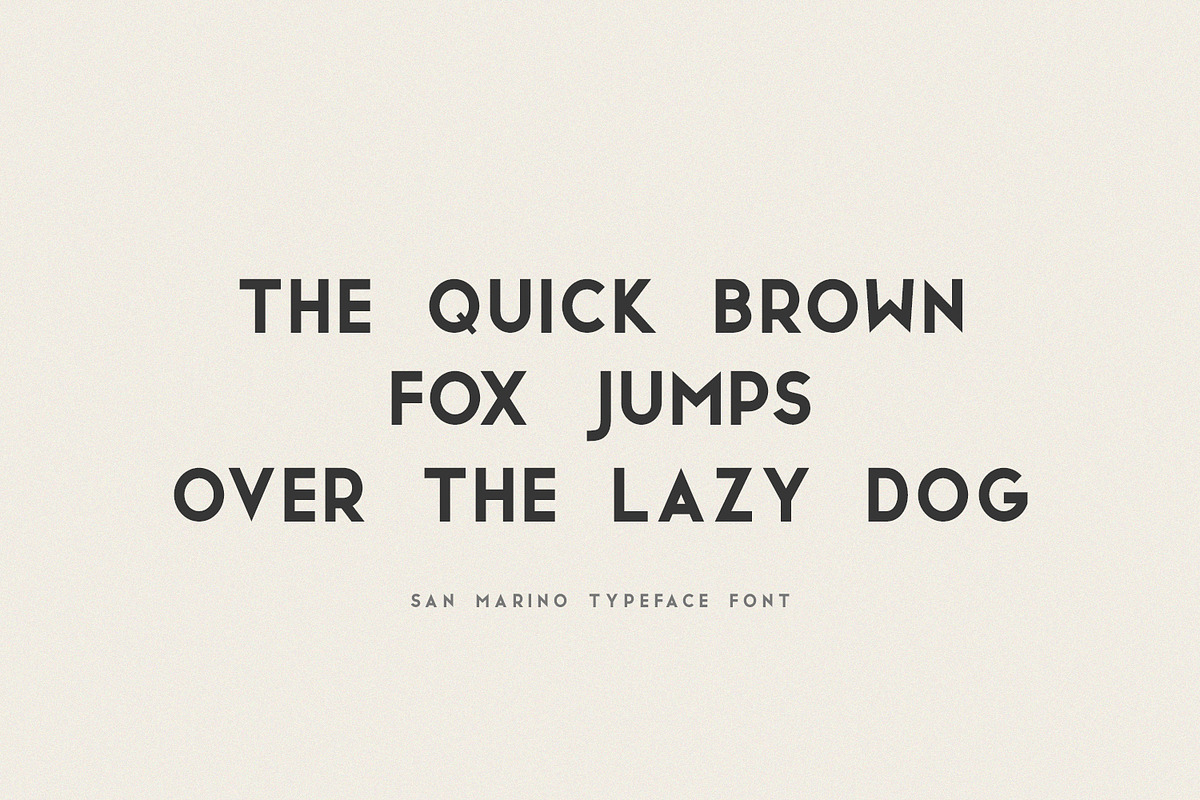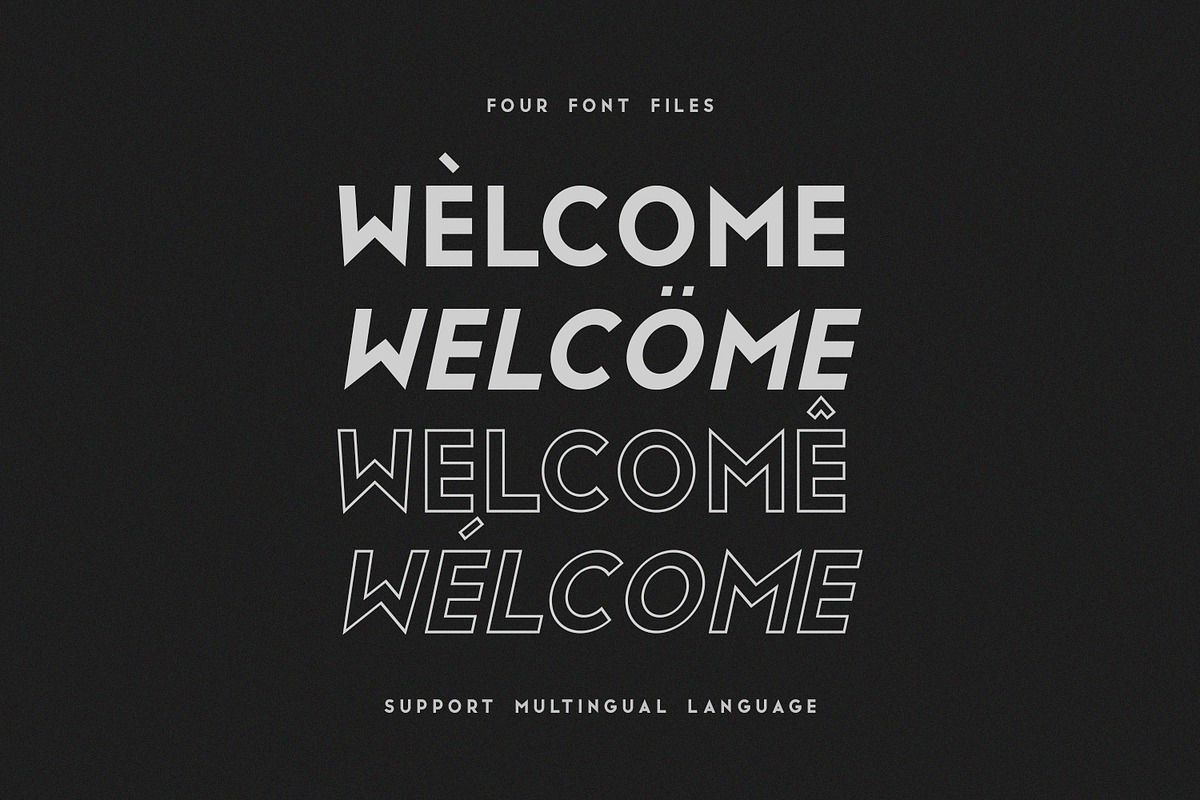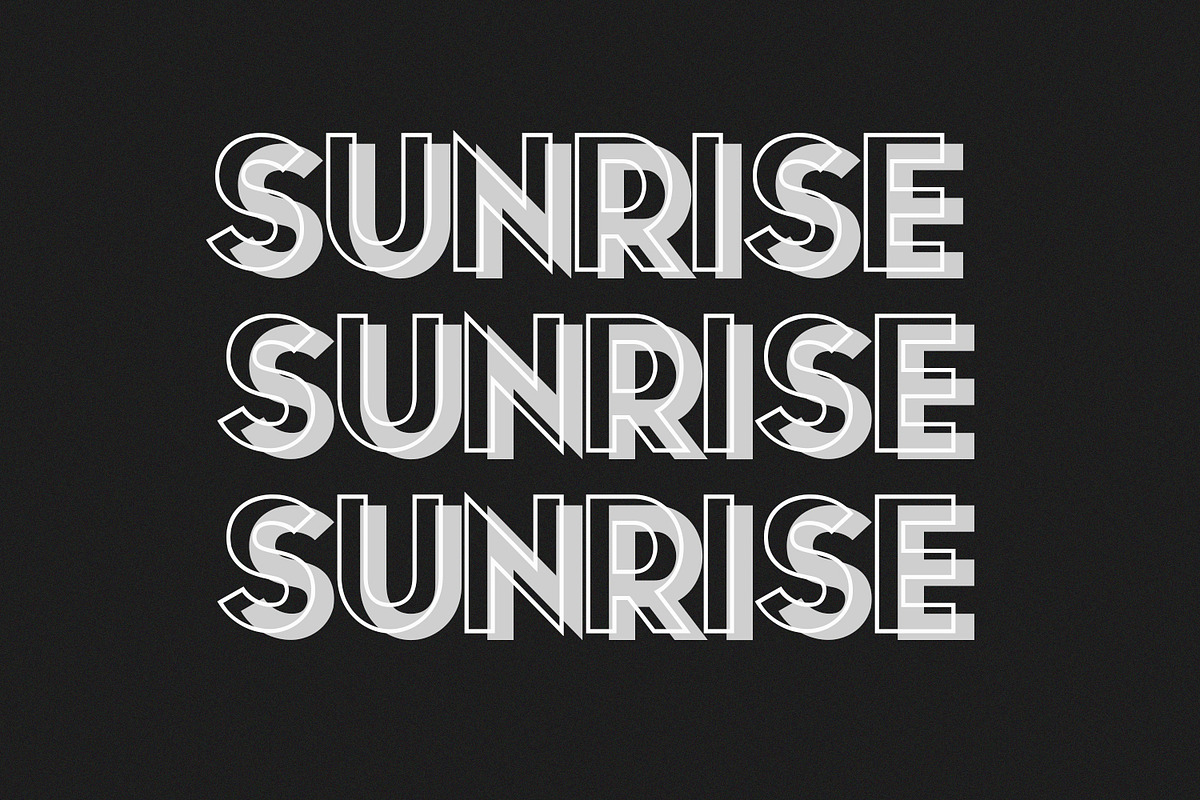
San Marino Font
San Marino is an original sans serif font that was improved with geometric shapes. It exudes an image of modernity, stylishness, and elegance. It offers four styles. As for Opentype features, it comes with an extended set of characters to support western European languages.